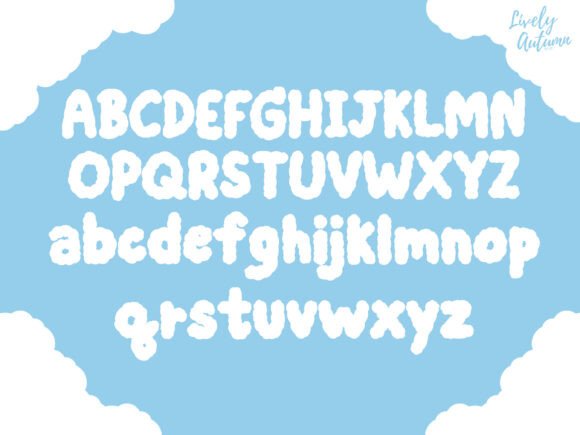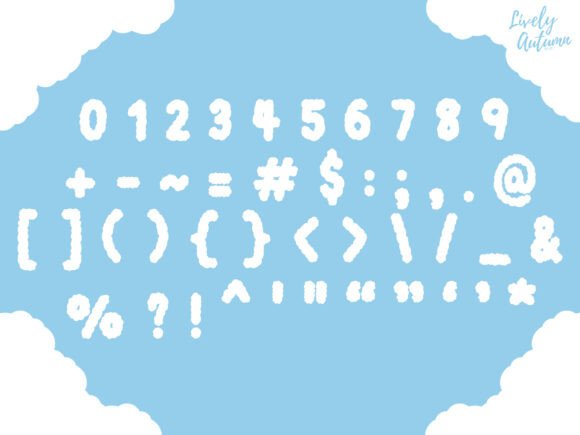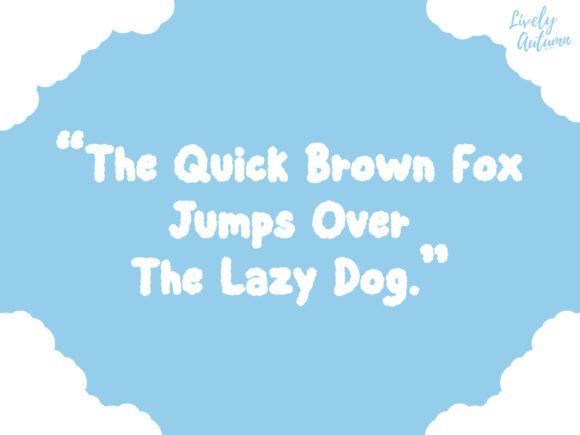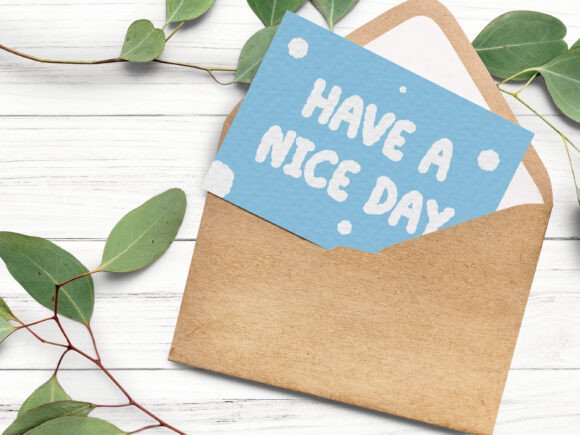
The Fluffy Font Revolution: Adding a Touch of Whimsy to Your Designs
I’ll never forget the time I was working on a project for a children’s birthday party invitation. I had the perfect design concept, but I just couldn’t find a font that matched the playful and fun vibe I was going for. That was until I stumbled upon Fluffy Font, a hand-drawn sans serif typeface that instantly brought my design to life. In this article, we’ll dive into the world of Fluffy Font, exploring its features, how to use it, and what makes it so special.
A Personal Review of Fluffy Font
As a designer, I’m always on the lookout for fonts that can help me create unique and engaging designs. Fluffy Font has quickly become one of my go-to fonts, and here’s why:
- ✨ Unique and playful style: Fluffy Font has a distinctive, hand-drawn look that’s perfect for designs that need a touch of whimsy.
- ✅ Ease of use: The font is easy to read and works well for both headings and body text.
- 💕 Versatility: Fluffy Font is suitable for a wide range of projects, from invitations and posters to social media graphics and journals.
Of course, no font is perfect, and Fluffy Font has a few small quirks:
- 🤔 Limited formal applications: Due to its playful nature, Fluffy Font may not be the best choice for formal or professional projects.
- ⚠️ Legibility at small sizes: While the font is generally easy to read, it may become a bit blurry at very small sizes.
The Backstory of Fluffy Font
Fluffy Font was designed with the intention of creating a playful and whimsical typeface that’s perfect for creative projects. The designer wanted to create a font that would bring a smile to people’s faces and add a touch of fun to their designs. With its rounded edges and soft curves, Fluffy Font is sure to delight audiences of all ages.
| What type of projects is Fluffy Font best suited for? | Fluffy Font is perfect for creative projects like invitations, posters, social media graphics, journals, and more. |
| Is Fluffy Font easy to read? | Yes, Fluffy Font is generally easy to read, but it may become a bit blurry at very small sizes. |
| Is Fluffy Font available in different languages? | Fluffy Font may not support all languages, but it does include a range of characters and glyphs to help you create unique designs. |